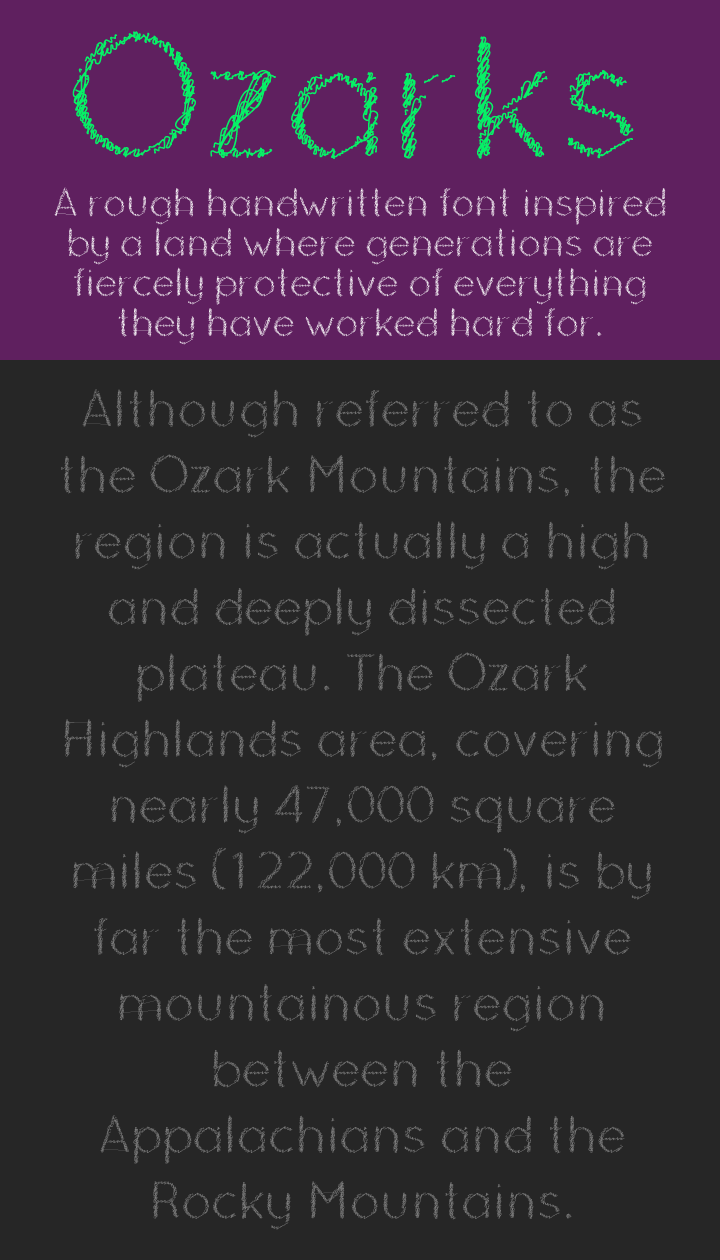
Font name: | Ozarks |
Author: | Louis Dorman |
Note by Louis Dorman | |
I grew up in the Ozarks mountains of Missouri. A rough handwritten font inspired by a land where generations are fiercely protective of everything they have worked hard for. |